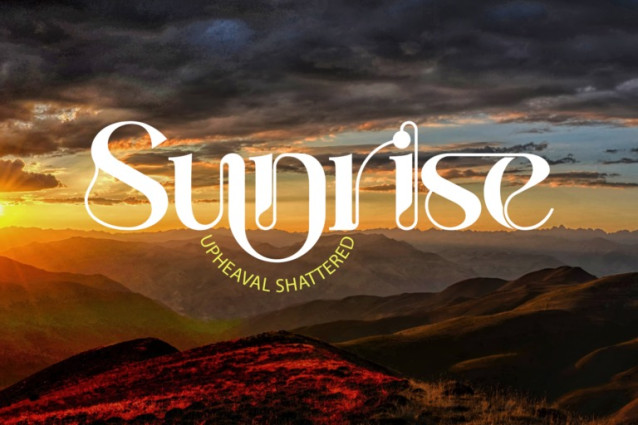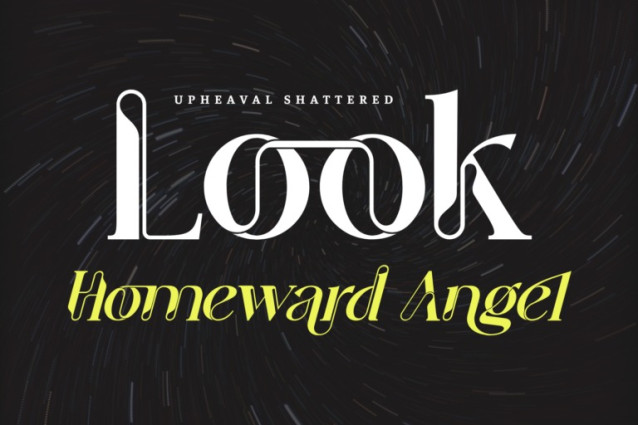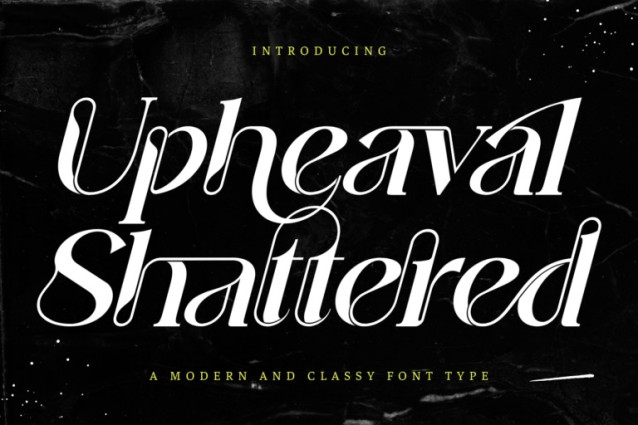
Upheaval Shattered Font
Upheaval Shattered – Unique Font – An Expressive Serif Display Font, a dramatic and elegant high-contrast serif display font that blends graceful curves with razor-sharp precision. Its sweeping terminals, fluid ligatures, and refined slant give your typography a sense of movement, sophistication, and confidence.
Perfect for fashion branding, editorial headlines, wedding design, album covers, and any project that calls for a bold artistic presence.
Features:
Full Uppercase & Lowercase Letters
Over 100 Special Ligatures and Stylistic Alternates
Complete Numerals & Punctuation
Accented Characters for multilingual support
About 100 ligatures combined with Stylistic Alternates Font: